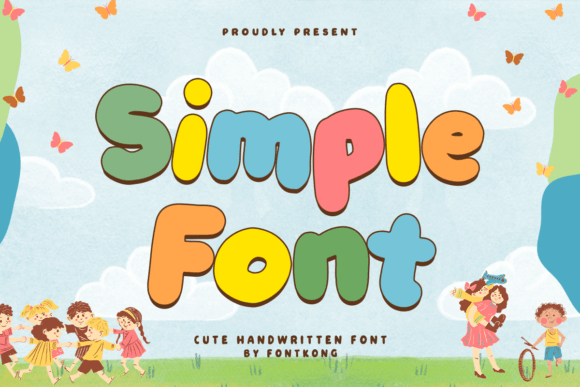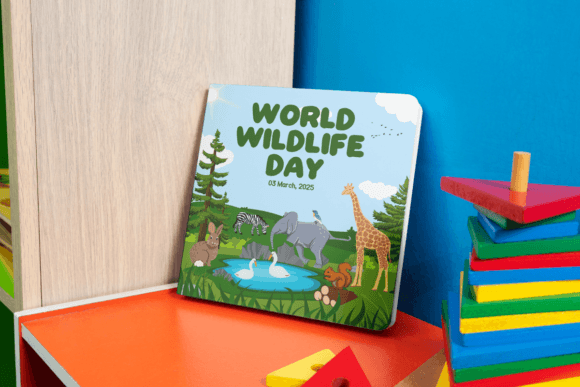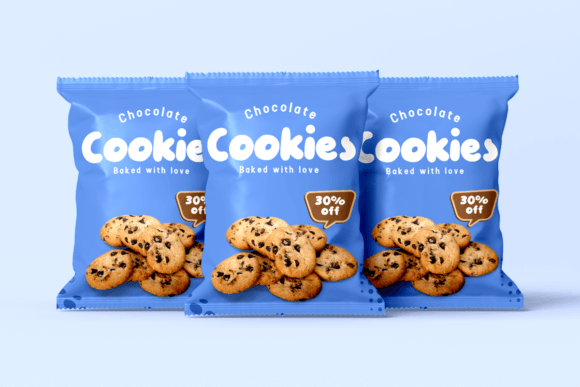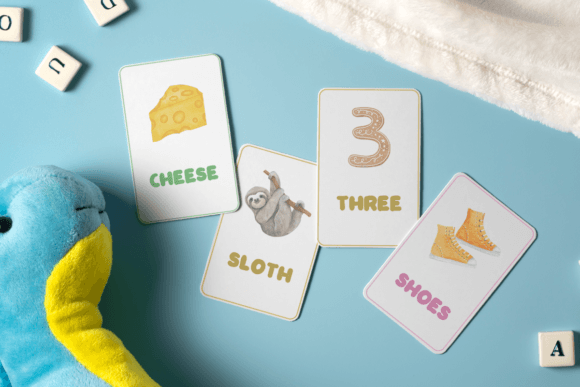
Simple Font Font Font
About the Simple Font Font Font
The Simple Font Font Font offers a perfect balance of form and function for your design needs. Introducing Simple Font Display Kids Font, a delightful and easy-to-read typeface designed to captivate young audiences with its playful simplicity. Featuring clean, rounded characters and a friendly appearance, Simplefont is perfect for children’s books, educational materials, playful branding, and fun party invitations. This versatile display font combines readability with charm, making it ideal for creating engaging designs that are both visually appealing and accessible for kids. Whether you’re designing classroom resources or celebrating a special occasion, Simple Font Display Kids Font adds a touch of joy and clarity to your projects.
Simple Font Font Font Usage Examples
Simple Font Font Font Example